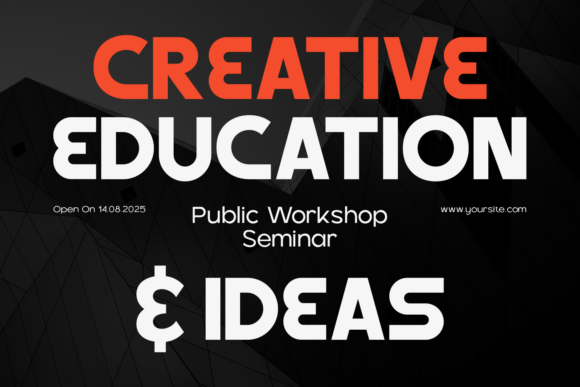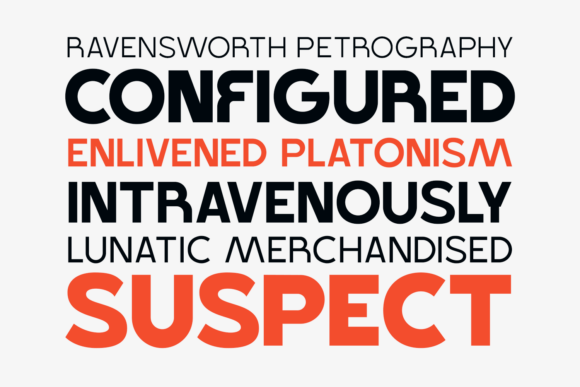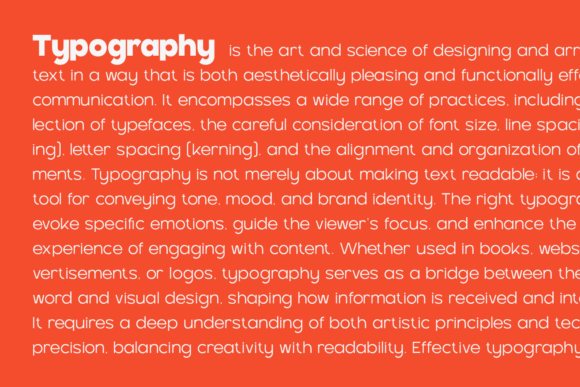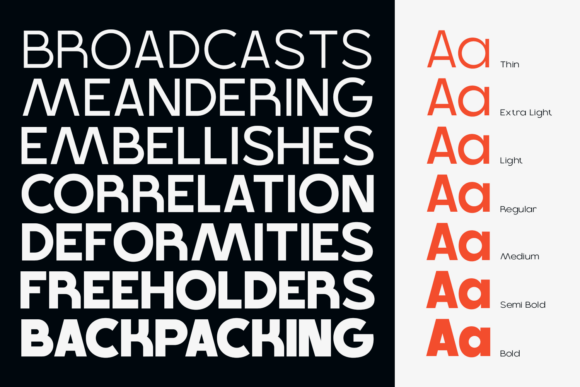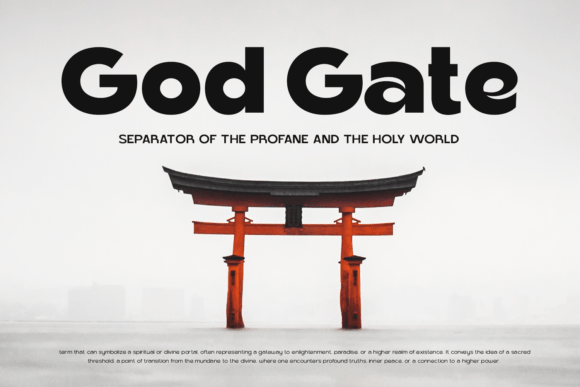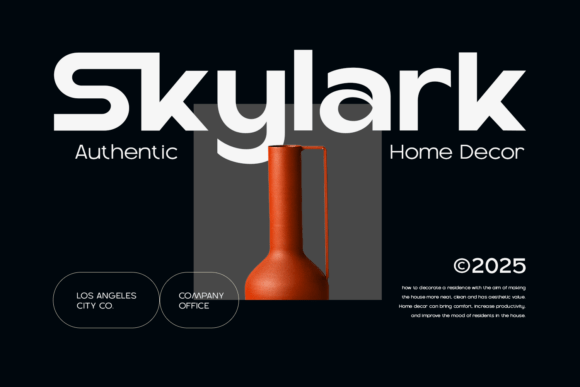
Discover the Elegance of Grenoble Font: A Modern Geometric Sans-Serif
Grenoble is a sleek, geometric sans-serif font that has captured the hearts of designers and crafters alike with its modern edge and classic inspiration. This versatile font family boasts clean lines, sharp angles, and a refreshing simplicity that makes it perfect for a wide range of design projects. In this article, we’ll dive into the world of Grenoble Font, exploring its unique features, design inspiration, and the various ways it can elevate your designs.
The Inspiration Behind Grenoble
The design of Grenoble Font draws heavily from the neo-grotesk fonts of the 20th century, which were characterized by their minimal stroke contrast and geometric forms. This style of typography emerged as a response to the more ornate and decorative fonts that dominated the early 20th century. By stripping away unnecessary embellishments, neo-grotesk fonts like Grenoble offer a clean, modern aesthetic that is both timeless and versatile.
Key Features of Grenoble Font
Grenoble’s design is marked by several key features that make it an excellent choice for designers:
- Clean Lines and Sharp Angles: Grenoble’s geometric forms give it a crisp, modern look that cuts through visual clutter.
- Large X-Height: The font’s large x-height enhances legibility, making it easy to read in various contexts, from digital screens to print materials.
- Minimal Stroke Contrast: Grenoble’s minimal stroke contrast adds to its neo-grotesk charm, providing a subtle nuance that enhances its overall aesthetic.
- Strong, Structured Shapes: The font’s robust shapes ensure that it stands out in any design, while remaining highly legible.
Applications of Grenoble Font
Grenoble’s versatility makes it an excellent choice for a wide range of design projects, including:
- Magazine Layouts: Grenoble’s clean lines and geometric forms make it perfect for magazine layouts, where readability and style are paramount.
- Digital Interfaces: The font’s modern aesthetic and legibility make it an excellent choice for digital interfaces, such as websites, apps, and software.
- Branding: Grenoble’s bold character and professional look make it ideal for branding projects, where a strong visual identity is crucial.
- Posters and Packaging: The font’s geometric forms and clean lines make it perfect for posters, packaging, and other visual materials that require a modern, eye-catching look.
Why Choose Grenoble Font?
So, why should you choose Grenoble Font for your next design project? Here are just a few compelling reasons:
- Professional Look: Grenoble’s modern aesthetic adds a professional touch to any design, making it perfect for business materials, websites, and advertising campaigns.
- Adaptability: The font’s versatility makes it suitable for a wide range of design projects, from print materials to digital interfaces.
- Legibility: Grenoble’s large x-height and clean lines ensure that it remains highly legible, even in small sizes or at a distance.
- Distinctive Voice: The font’s bold character gives your message a clear and distinctive voice, setting you apart from the competition.
In conclusion, Grenoble Font is a sleek, geometric sans-serif font that offers a perfect blend of modern edge and classic inspiration. Its clean lines, sharp angles, and refreshing simplicity make it an excellent choice for a wide range of design projects. Whether you’re working on branding, posters, packaging, or digital interfaces, Grenoble’s versatility and legibility ensure that your content is both stylish and easy to read. With its professional look and distinctive voice, Grenoble Font is sure to elevate your designs and give your message a clear and compelling presence.